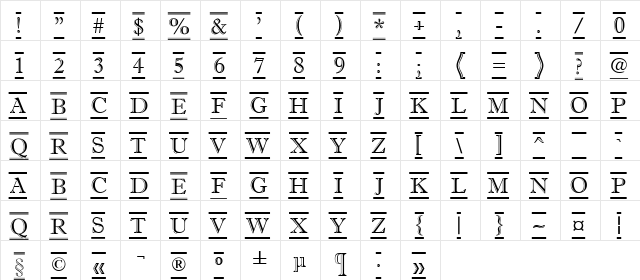
a_AntiqueTitulDcFr Regular
Design Context for a_AntiqueTitulDcFr Typeface
a_AntiqueTitulDcFr has the warm character of retro typography — evoking diners, record sleeves, and the golden age of print advertising.
Ideal for diner signage, record shop branding, 70s/80s-themed projects, and heritage product labels.
Font Pairing: Combine a_AntiqueTitulDcFr with a simple slab or neutral sans — period-accurate companions reinforce the vintage feel without competing for attention.
Pro Tip: Lean into a_AntiqueTitulDcFr's period character by pairing it with aged paper textures, muted colour palettes, and vintage illustration styles.